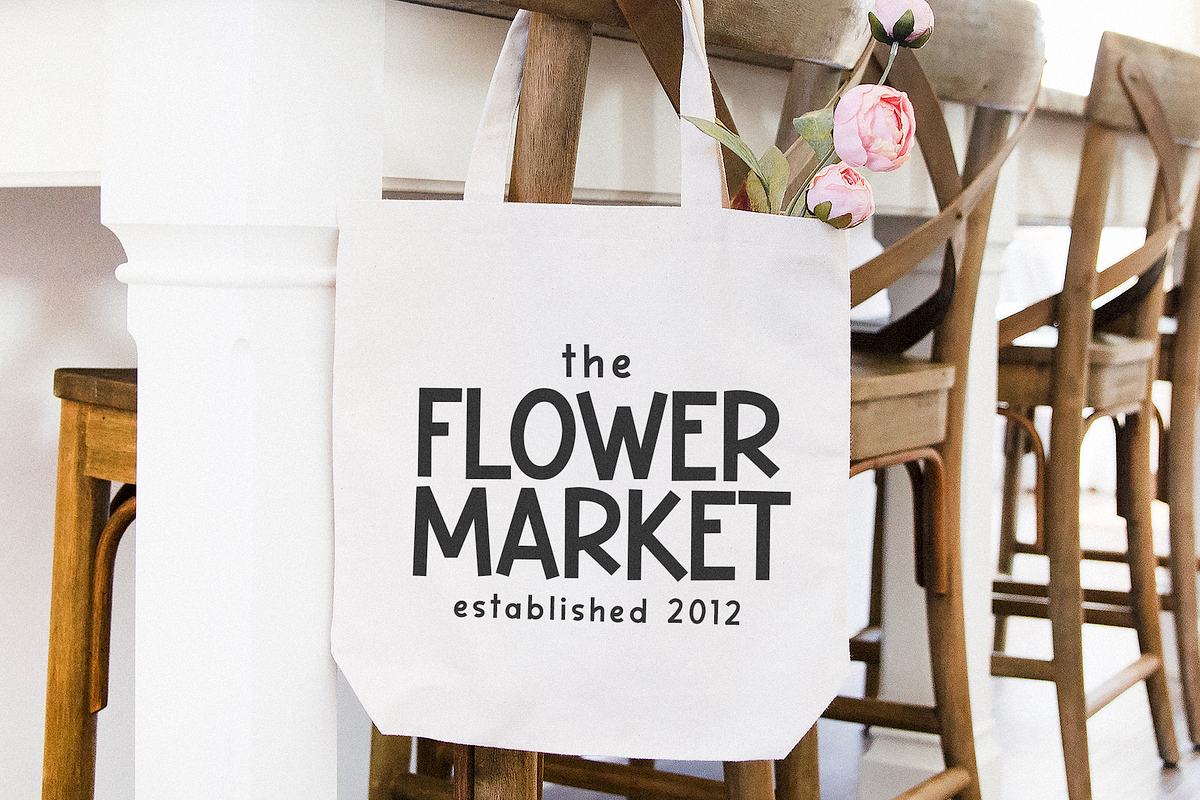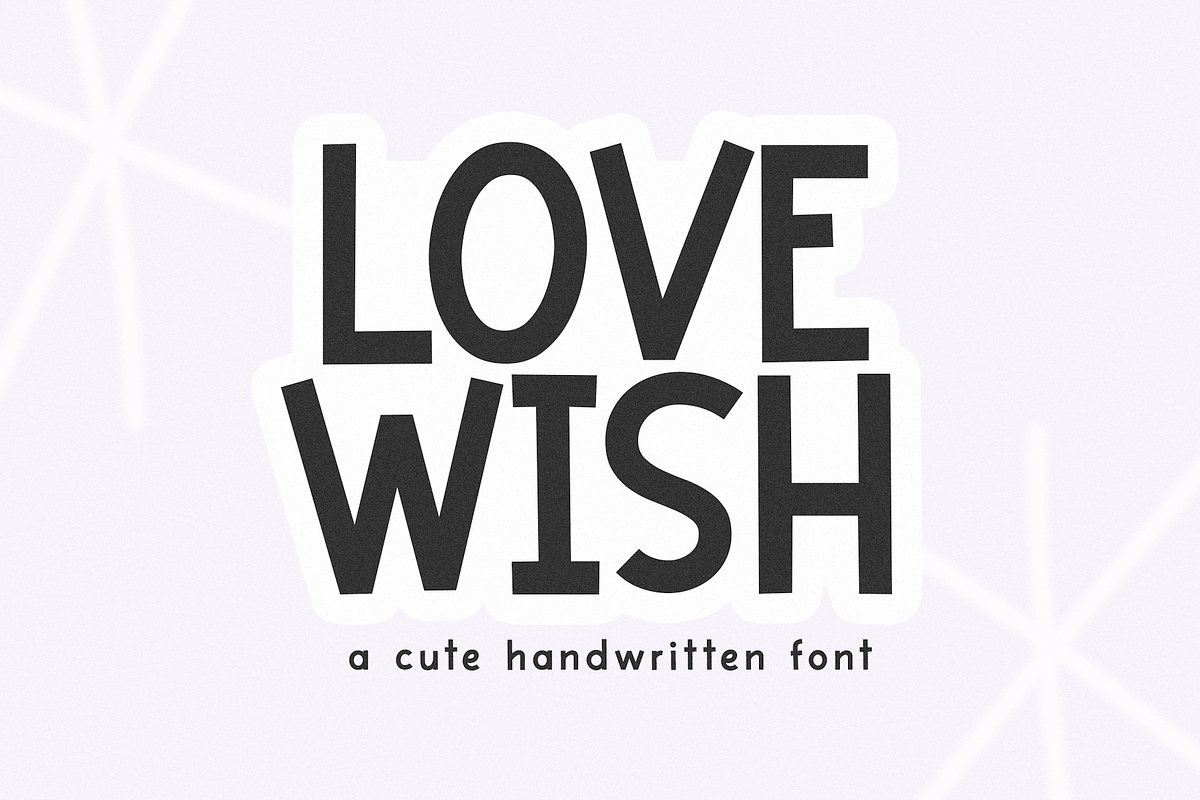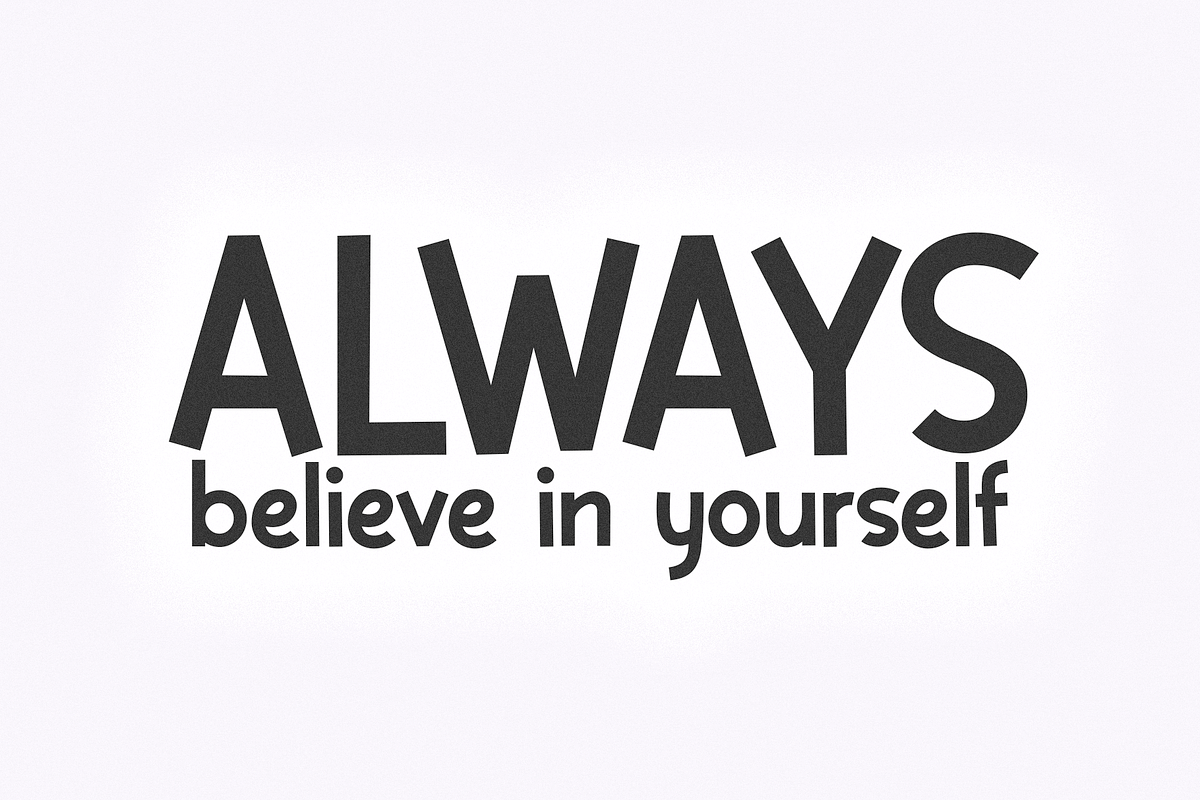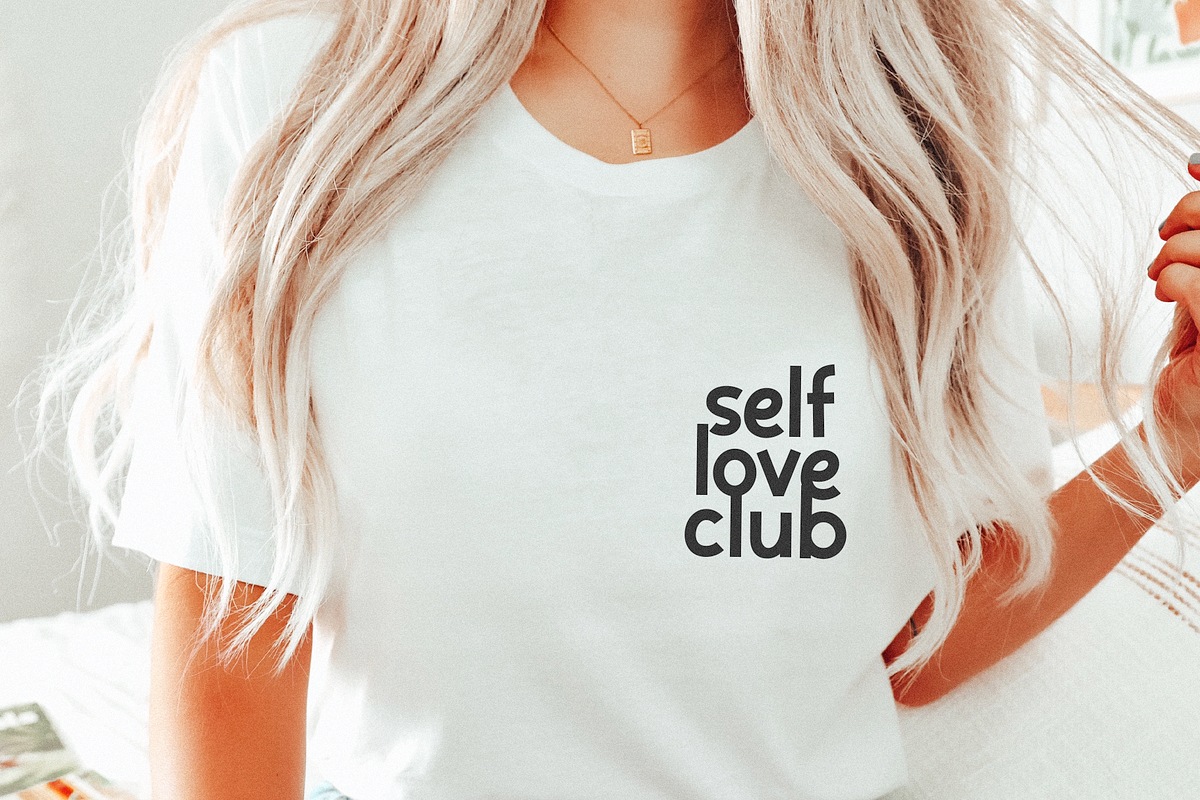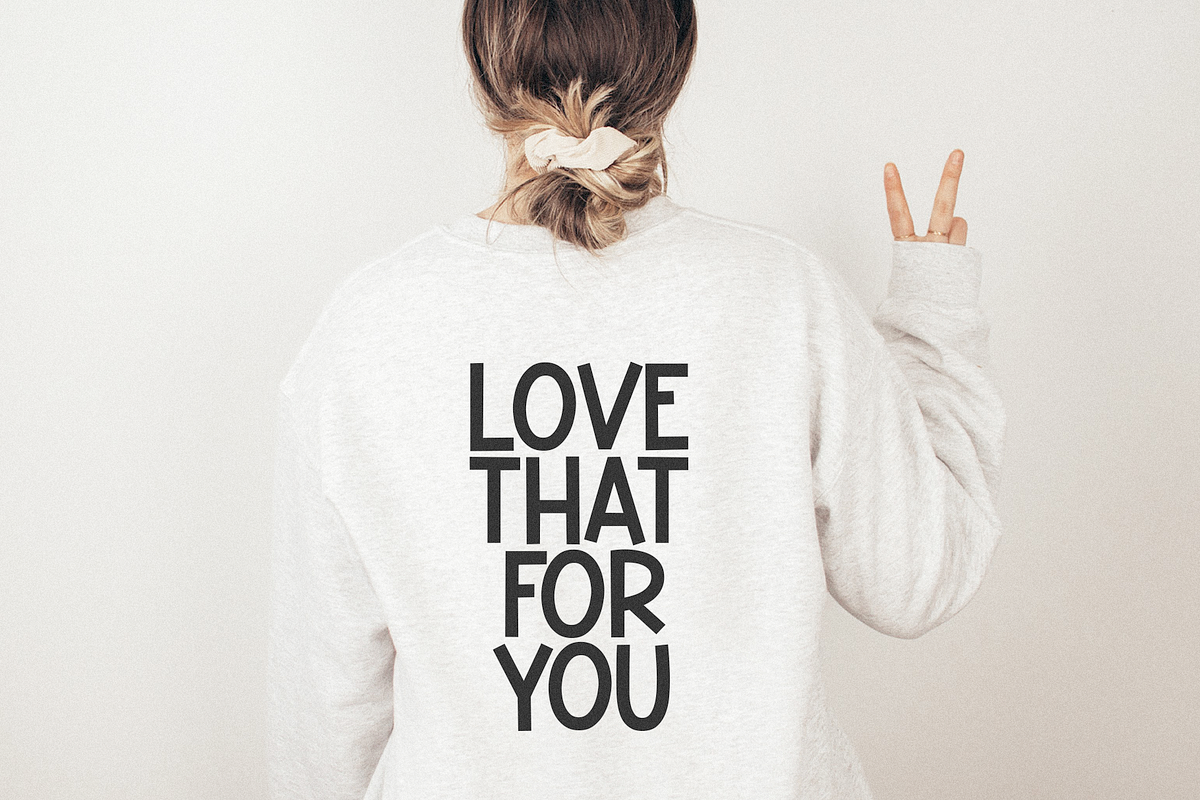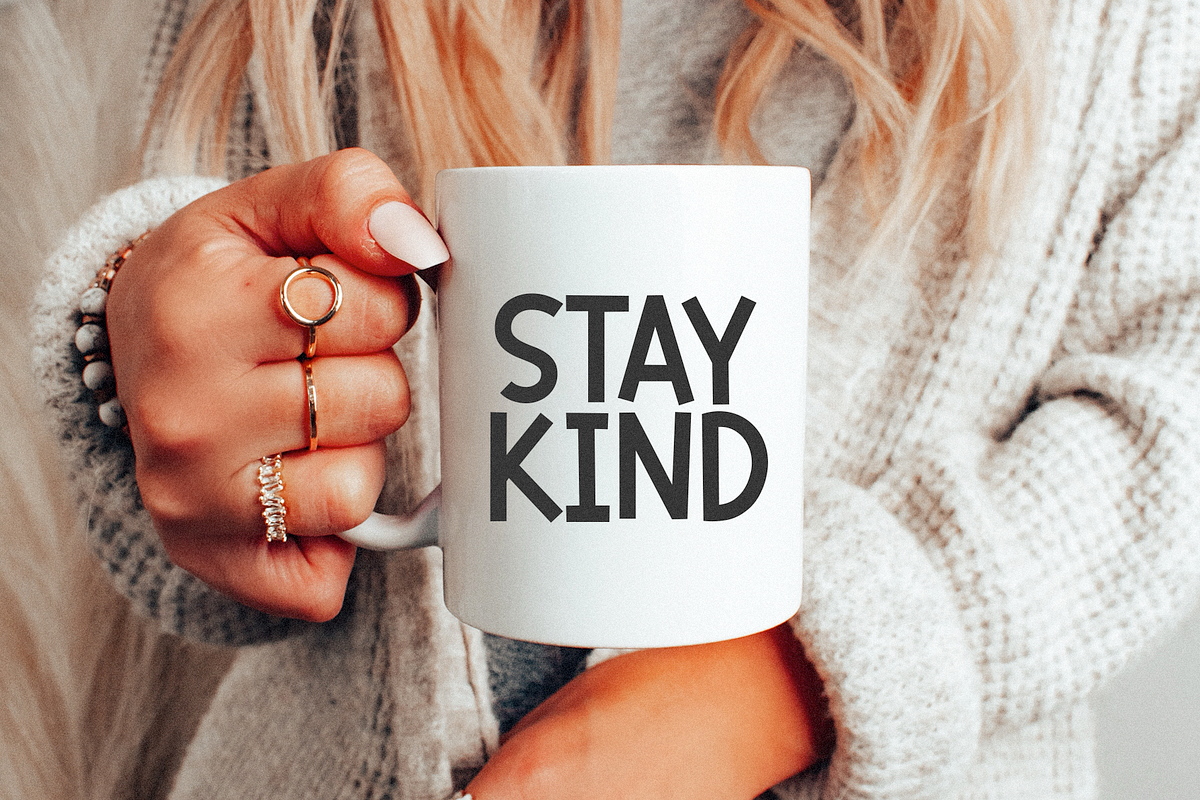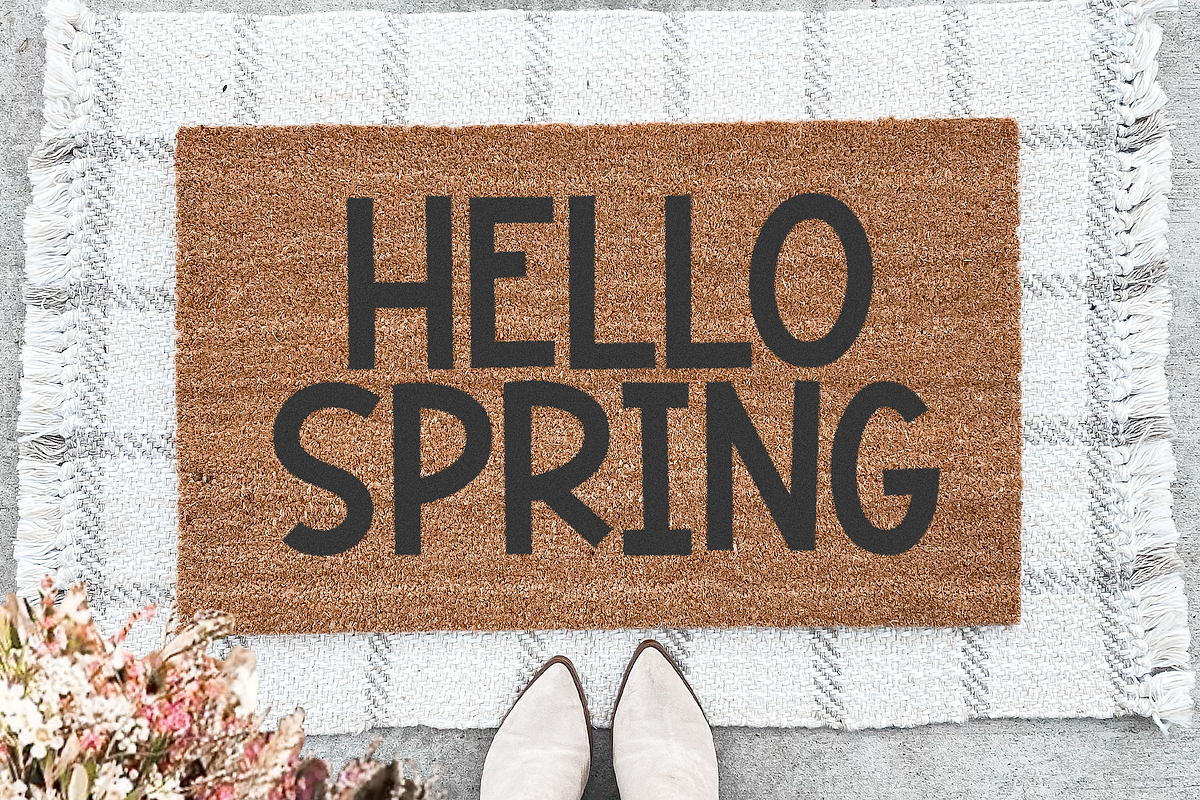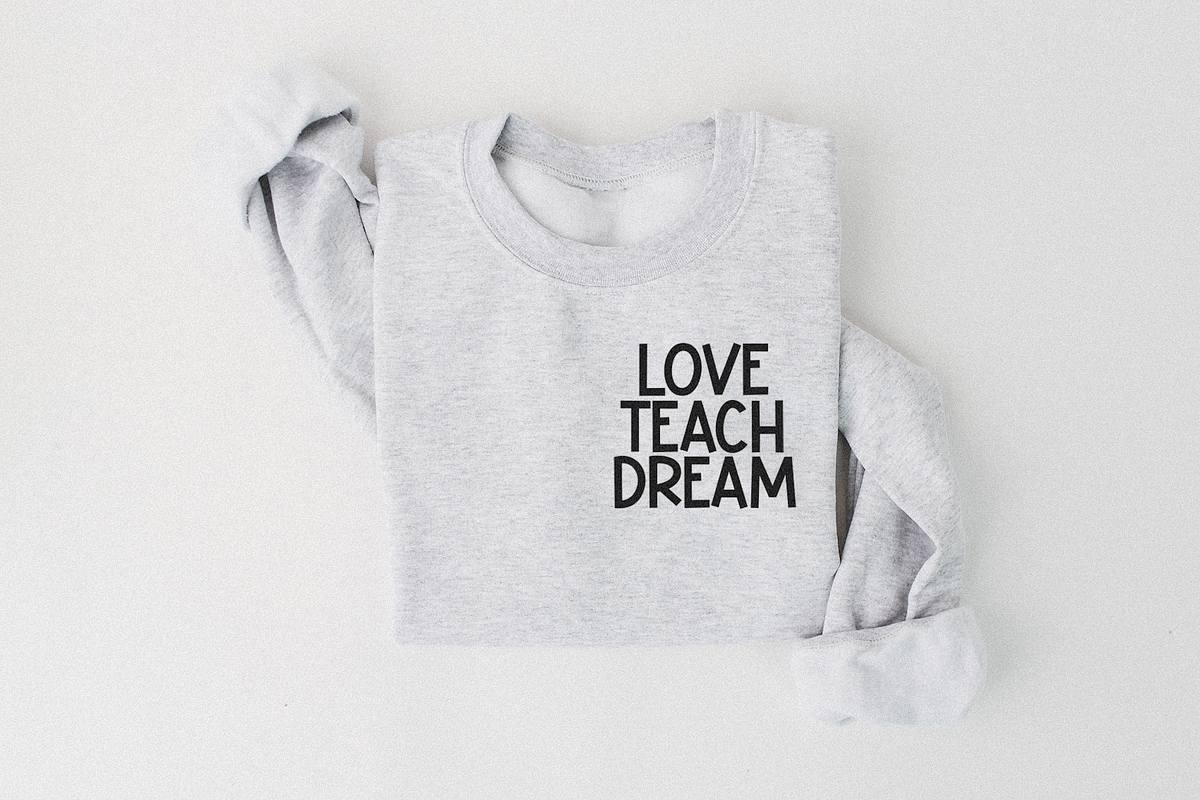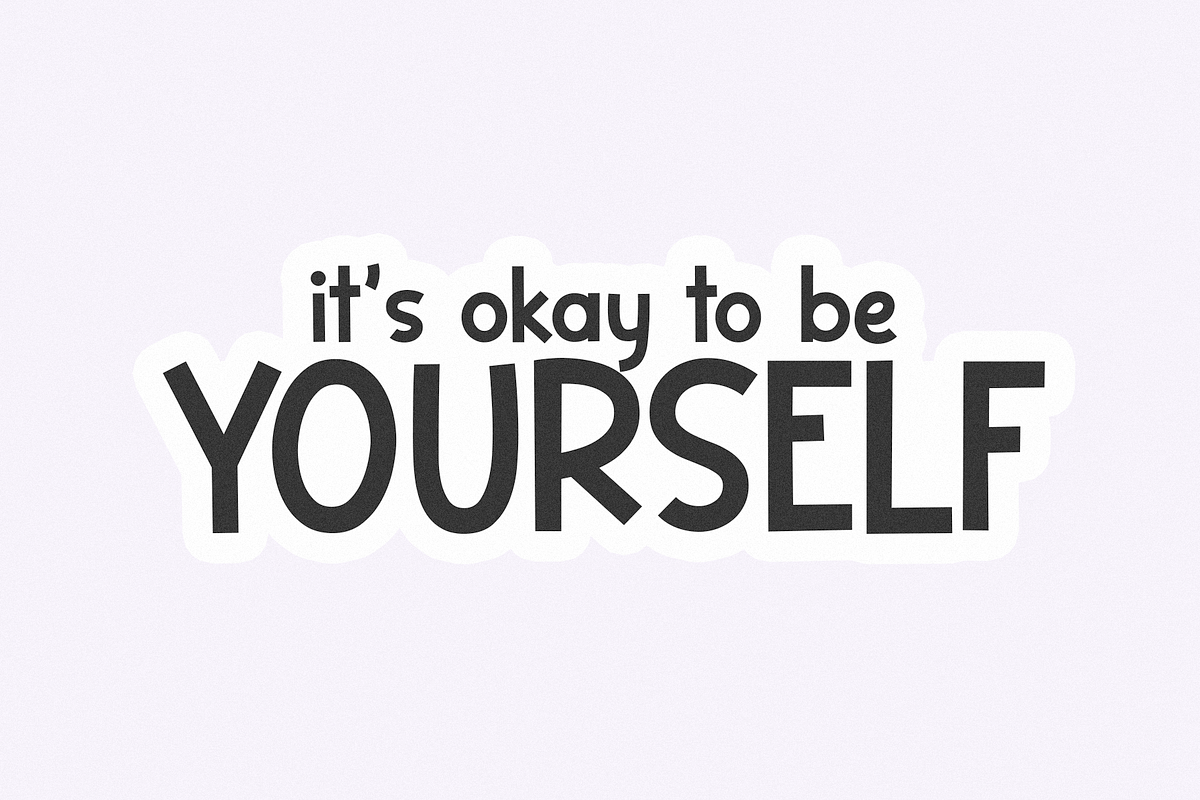
Lovewish | Fun Handwritten Font
Lovewish is a fun handwritten font!
This font is perfect for your craft projects, svg designs, shirts, mugs, teachers, procreate, stickers, logos and more!